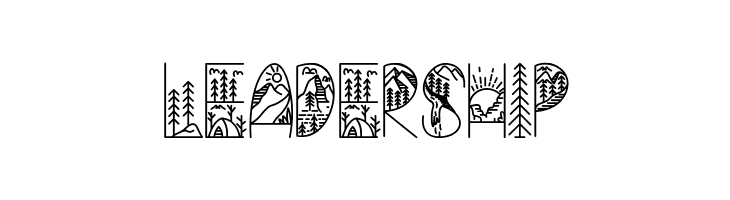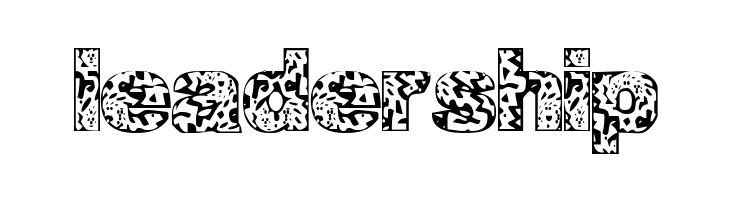
A decorative font featuring nature-inspired illustrations within each character.
A decorative font with intricate patterns inside bold uppercase letters.
A bold, 3D decorative font with strong geometric shapes and high contrast.
A bold, geometric font with a mix of solid and outlined segments, offering a modern, artistic flair.
A bold, decorative font with a unique horizontal striped pattern.
A playful, decorative font with star-like embellishments on each character.
A bold, geometric font with high contrast and artistic flair.
A decorative font inspired by bamboo sticks with a natural, organic style.
A decorative font with floral and vine embellishments, perfect for creative projects.
A bold, geometric font with a three-dimensional, prismatic design.
A bold, playful font with circular accents and rounded shapes for a modern look.
A bold Art Deco font with geometric shapes and strong lines, exuding vintage elegance.
A bold, Art Deco-inspired font with geometric shapes and sharp angles.
A bold, textured font with a playful and rugged appearance.
A playful, pendant-like font with bold, sans-serif characters enclosed in circles.
A bold, distressed font with a vintage, rugged appearance.
A bold, decorative typeface with a hypnotic, swirling pattern.